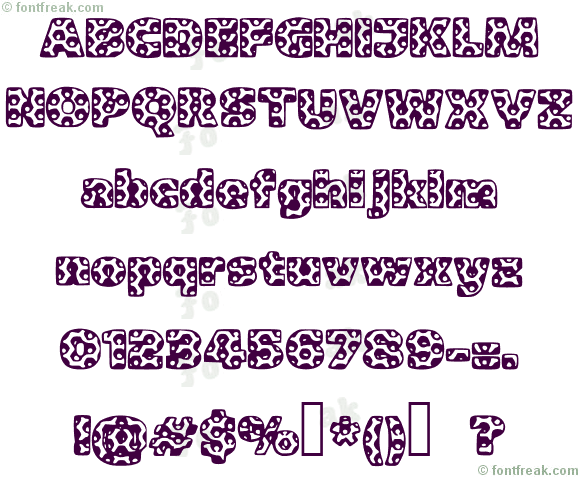
Metalic
About Metalic
The Metalic font by Leonard Posavec is a captivating display typeface that stands out for its playful yet bold aesthetic. As a decorative font, it features unique, irregular shapes that mimic the appearance of metal, giving it a distinctive character. The stroke weight varies throughout, creating an engaging contrast that draws the eye. The spacing is thoughtfully designed to maintain legibility while enhancing the overall visual impact. This font is adorned with whimsical decorative elements, making it an excellent choice for projects that require a touch of creativity and flair.
The Metalic font is ideal for a variety of use cases, including eye-catching movie posters, vibrant event flyers, and trendy restaurant menus. Its playful nature makes it particularly suitable for promotional materials for children's events or creative workshops. Additionally, graphic designers can utilize this font in branding projects where a unique and memorable identity is essential. Content creators looking to add some personality to their digital graphics will also find this font highly appealing.
Targeted towards graphic designers, small business owners, and content creators, the Metalic font offers a fresh alternative to more traditional typefaces. Its unique design elements can help elevate any project, making it more visually engaging and memorable.
In a crowded market of fonts, the Metalic font stands out due to its distinctive combination of whimsy and boldness. The free download option allows users to experiment with this creative typeface without any financial commitment, making it accessible for all. Whether you're working on a personal project or a professional design, the Metalic font is sure to bring a unique touch that captures attention and inspires creativity.